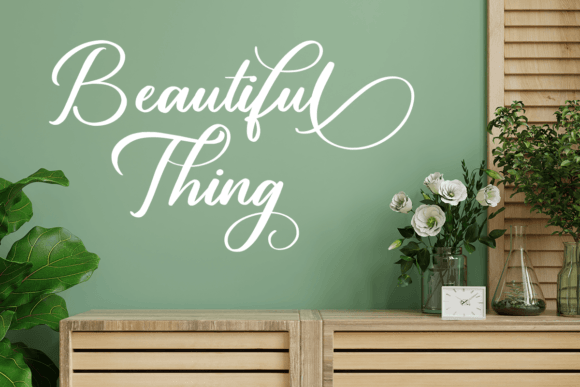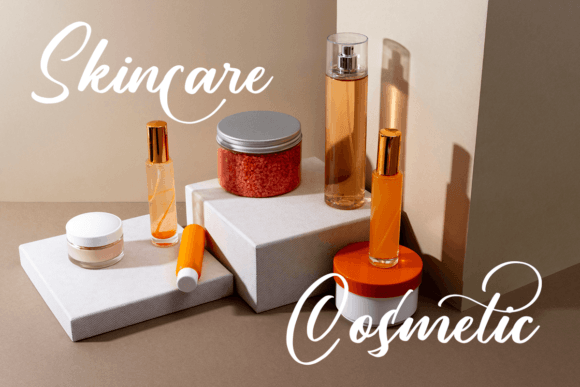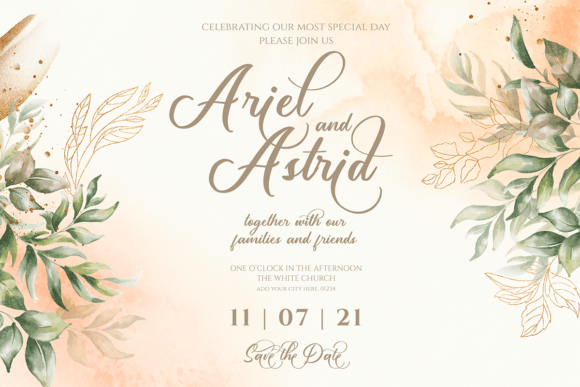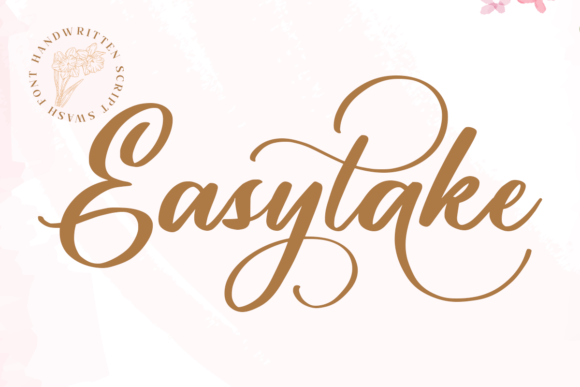
Introduction to Easytake Font
Easytake is a beautiful and quirky handwritten font.
Fall in love with its incredibly versatile style, and use it to create gorgeous wedding invitations, posters, magazines, cosmetics, t-shirt designs, lettering, greeting cards, and much more This font is PUA encoded, which means you can access all of the glyphs and swashes with ease.
Key Features of Easytake Font
Why Choose Easytake Font?
Easytake Font offers exceptional quality and versatility, making it a valuable addition to your design toolkit. Whether you’re creating for personal projects or commercial use, Easytake Font delivers professional results.